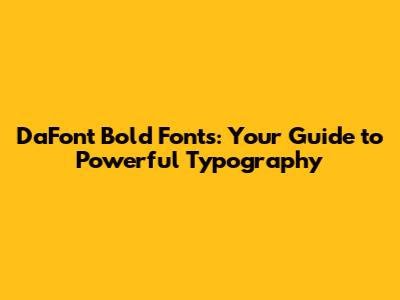
Hey guys! Ever wondered how to make your text pop? Like, really pop? Well, you're in the right place! We're diving headfirst into the world of DaFont bold fonts – those chunky, attention-grabbing typefaces that scream "look at me!" Whether you're a designer, a blogger, or just someone who loves a good font, understanding bold fonts is a game-changer. This guide is your ultimate cheat sheet to navigating the awesome collection of DaFont bold fonts, helping you choose the perfect one for your project. Get ready to level up your typography game! We'll cover everything from what makes a font "bold" to where to find these typographic treasures and how to use them effectively. Let's get started, shall we?
What Makes a Font 'Bold'? Understanding DaFont Bold Fonts
So, what exactly makes a font "bold"? It's all about the stroke weight, my friends. A bold font has thicker strokes than its regular counterpart. Think of it like this: the font has been hitting the typography gym and bulked up! This extra weight makes the text stand out, especially against other text or in a busy design. DaFont bold fonts are specifically designed to be easily visible and legible, even at smaller sizes or in less-than-ideal viewing conditions. This is super important for headings, subheadings, and any text that you want to instantly grab the reader's attention. The "boldness" of a font is often indicated by its name (e.g., "Roboto Bold," "Arial Bold"), but it's also visually obvious. When you see those thick, confident lines, you know you're looking at a bold font. The effect is achieved by increasing the width of the strokes that make up the letters. Some fonts have multiple levels of boldness, like "Extra Bold" or "Black," allowing you even more control over the impact of your text. It's not just about aesthetics, though. Bold fonts can also influence how we perceive a message. They can convey strength, confidence, and importance, making them ideal for headlines, calls to action, and any text that needs to leave a lasting impression. When you choose a bold font, you're not just choosing a typeface; you're choosing a mood and a message. And with the vast selection of DaFont bold fonts, you're sure to find one that fits your needs.
The Importance of DaFont in the Design
DaFont is a fantastic resource for designers of all levels, offering a massive library of free fonts, including a huge selection of bold fonts. The beauty of DaFont is its accessibility. It's super easy to browse, search, and download fonts, making it a go-to for anyone looking to spice up their designs. DaFont bold fonts are especially popular because they are designed to be eye-catching and readable, which is a great asset. Whether you're working on a website, a poster, or a presentation, a well-chosen bold font can make all the difference. Using DaFont, you'll be able to quickly find and download the perfect typeface for your project. This platform's user-friendly interface makes it easy to preview fonts and see how they look in different sizes and styles before you download them. This is crucial because a font might look great in the preview but not fit your design once you use it. DaFont also has a tagging system that allows users to filter fonts based on their style, theme, and other characteristics, making your search even more efficient. From classic serifs to modern sans-serifs, you'll find a wide range of styles to choose from. When it comes to DaFont bold fonts, you can easily find fonts that are perfect for headlines, logos, or any text that needs to draw attention. The availability of free fonts on DaFont empowers designers to create professional-looking projects without breaking the bank. The platform's active community contributes to a dynamic environment where new fonts are constantly being added, which means you're always likely to discover something new and exciting. With DaFont, you're not just downloading fonts; you're joining a community of creatives. You'll gain access to a treasure trove of typographic resources, opening up endless possibilities for your design projects. So, dive in, explore the vast library of fonts, and discover the power of typography.
Finding the Best DaFont Bold Fonts: A Quick Guide
Okay, so you're ready to find some amazing DaFont bold fonts. Awesome! Here's how to navigate the DaFont website and find the perfect bold font for your needs. First things first, head over to DaFont.com. The website has a simple, intuitive layout, which is perfect for beginners. You can either use the search bar to look for specific font names or use the category filters to browse by style. For bold fonts, the easiest method is to go to the "Sans Serif" or "Serif" categories and look for the "bold" or "heavy" options. These often contain a great selection of bold and extra-bold fonts. When browsing, make sure to preview the fonts. DaFont allows you to type in custom text and see how the font looks with your words. This is a must-do before you download. Try different sizes and see how the font looks in different contexts. Does it work for headlines? Subheadings? Body text? Remember, it's all about how the font complements your design. Here are some of the best fonts based on their different category, which you will love: Bebas Neue, Montserrat, Open Sans, Raleway, and Roboto. All of those are from the sans serif category. And for the serif category, you can choose: Playfair Display, Ultra, and Anton. Those will be great options for your designs.
Best Practices for Using DaFont Bold Fonts
Alright, you've found your DaFont bold fonts and you're ready to use them. Awesome! Here are some best practices to ensure you make the most of these powerful typefaces. First and foremost, use bold fonts strategically. Don't go overboard. Too much bold text can be overwhelming and can lose its impact. Use bold fonts for headlines, subheadings, and other areas where you want to draw the reader's eye. Think of it like seasoning; a little goes a long way. This will ensure that the most important information stands out without distracting the reader. Also, choose the right font for the job. Not all bold fonts are created equal. Some are better suited for specific purposes than others. Consider the style and personality of the font. Does it match the overall tone of your project? A sleek, modern sans-serif bold font might be perfect for a tech blog, while a more ornate serif bold font might suit a luxury brand. Experiment with different font pairings. Bold fonts often look great paired with a lighter font for body text. This creates visual contrast and improves readability. Just make sure the fonts complement each other and don't clash. Create a visual hierarchy. Use bold fonts to establish a clear hierarchy in your design. Larger, bolder text typically indicates a higher level of importance. This helps guide the reader's eye and makes it easier to scan the content. Also, use bold fonts consistently throughout your design. This creates a cohesive look and feel. Choose a few bold fonts that fit your brand's identity and stick to them. Finally, remember to consider readability. While bold fonts are designed to be legible, some can be challenging to read, especially at smaller sizes. Always test your font in different sizes and contexts to ensure it's easy to read. These DaFont bold fonts will make your projects pop out.
Combining Bold Fonts with Other Typography Elements
Pairing DaFont bold fonts effectively with other typography elements can significantly elevate your design. The key is to create a visual hierarchy and balance. First, consider pairing your bold headlines with a lighter font for body text. This contrast ensures that the bold headlines immediately grab the reader's attention while the body text remains easy to read. The rule is to establish a clear visual hierarchy. Think about the order in which you want your audience to absorb the information. Use the bold font for the most important information, such as headlines, subheadings, and calls to action. Use the remaining fonts to keep the reader engaged. Secondly, experiment with different font weights and styles. Many bold fonts come in various weights (e.g., regular, bold, extra bold), allowing you to create nuanced headings and subheadings. Combining different styles, such as italics or underlined text, can also create emphasis. However, be mindful of going overboard. Too many styles can make your text look cluttered and confusing. You can also experiment with different sizes and colors to add further emphasis. Increase the font size of headlines to make them stand out. Use colors strategically to create visual interest and highlight important information. Make sure the colors contrast with the background to enhance readability. The most important thing is to ensure that your design is easy to understand. Combining bold fonts with different typography elements is an art form. It's about finding the right balance between emphasis and readability. Remember, your goal is to guide the reader through your content in a clear and engaging way. By combining DaFont bold fonts with other elements, you can achieve powerful and visually appealing designs.
DaFont Bold Fonts: Common Mistakes to Avoid
Even the most experienced designers make mistakes. Let's look at some common pitfalls to avoid when using DaFont bold fonts. Overuse is the number one offender. Resist the urge to make everything bold! Too much bold text becomes overwhelming and loses its impact. Think strategically. Reserve bold fonts for areas where you want to emphasize key information. Also, avoid using too many different bold fonts in one design. It can create a disjointed, chaotic look. It's better to stick with one or two bold fonts and use variations (like different weights or styles) to create visual interest. Then, don't use bold fonts for body text, unless absolutely necessary. Bold body text can be tiring to read, especially in large blocks. Use lighter fonts for body text and reserve bold for headlines and subheadings. Also, never stretch or distort a bold font. This can make the font look distorted and unprofessional. Stick to the font's original proportions. And please, always check the license before using a DaFont font. While many fonts are free for personal use, they may require a commercial license. Always read the license details to ensure you're using the font legally. Avoid small text. Bold fonts can sometimes appear cluttered when used at small sizes. Ensure the font is legible in the size you choose. The common mistakes will make your DaFont bold fonts look unprofessional.
Conclusion: Unleashing the Power of DaFont Bold Fonts
So there you have it, folks! Your guide to DaFont bold fonts is complete! You are now equipped with the knowledge to find, download, and use these powerful typefaces to their full potential. Remember to use them strategically, consider the style, and always prioritize readability. Experiment with different combinations and don't be afraid to get creative. Bold fonts are an incredibly effective way to make your text pop, grab attention, and convey your message with confidence. Happy designing, and go forth and make your typography bold and beautiful! The amazing DaFont bold fonts will enhance your project! Now, go out there and create something amazing!